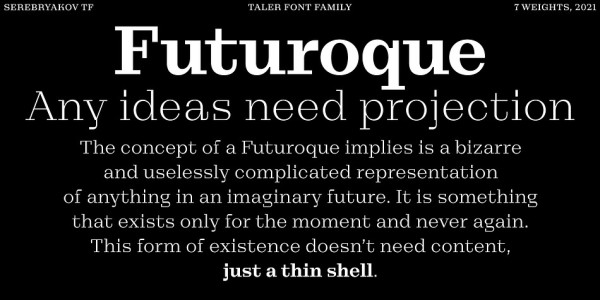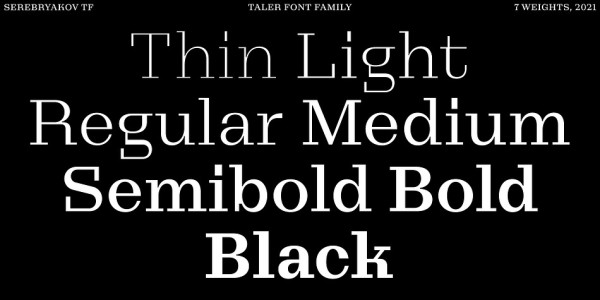
Taler Font
Taler Font is a serif typeface is represented by seven weights. It was conceived as a continuation of the sans-serif Nekst. In the process of design it became clear that it is a completely different typeface. The rectangular, slightly elongated serifs, the plastic stiffness, and the combination of different styles make Taler Font a true representative of contemporary. It’s old-fashioned and modern, it’s for a display titles and for plain text, it’s rough and elegant – it’s all present at the same time. The duality of Taler nature is it peculiarity.